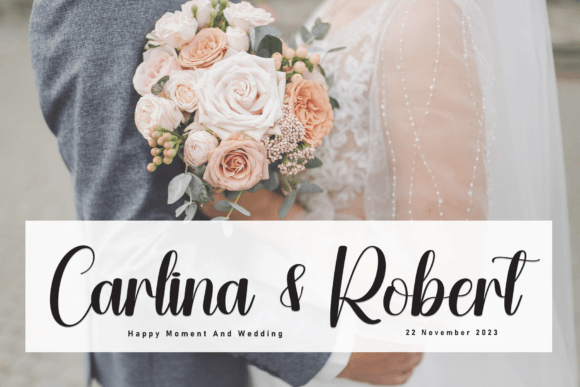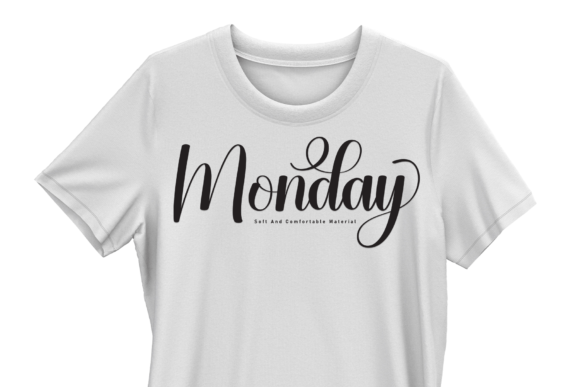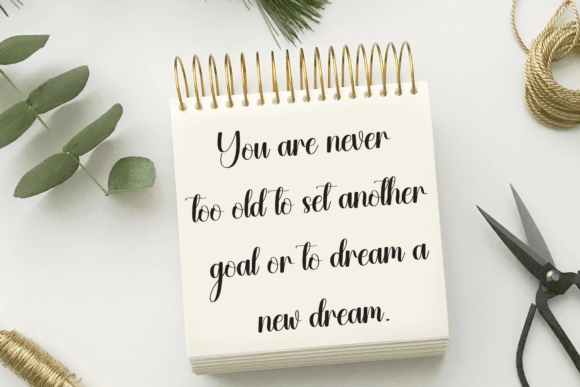
Introduction to Shady Umbrella Font
As a designer, there’s nothing quite like the thrill of landing on the perfect font for your creative project. It’s that moment when everything clicks, and your vision starts to take shape. I recall a project where I was tasked with creating a set of elegant invitations for a luxury wedding. The client wanted something sophisticated, yet understated, and that’s when I stumbled upon the Shady Umbrella Font.
With its unique blend of elegance and mystery, the Shady Umbrella Font quickly became my go-to choice. Its high-quality strokes and curves exude a timeless charm that’s simply irresistible. Whether you’re working on a design project that requires a dash of class or a hint of intrigue, this font is sure to deliver. And with its transparent background and PUA encoding, you can easily access all the amazing glyphs and ligatures to elevate your design to the next level.
Key Features of Shady Umbrella Font
• High-quality, unique font design ideal for creative projects, including graphic design, digital art, and more.
• Features a transparent background, allowing for easy integration into various design elements.
• Unique characteristics include a bold, modern aesthetic and a wide range of customizable options.
Honest Review: Shady Umbrella Font
As a designer, I was excited to try out the Shady Umbrella Font, a free download that promised high-quality typography. I must say, I was pleasantly surprised by the result.
What works well: ✨ The font is incredibly versatile and can be used for a variety of creative projects, from branding and marketing materials to digital products and websites. The transparent background feature is also a nice touch, allowing for seamless integration with any design.
Some of my favorite features include:
• High-quality glyphs that are perfect for printing and digital use
• A wide range of language support, making it a great resource for international projects
• A sleek and modern design that’s perfect for modern branding and marketing materials
Limitations: ⚠️ While the font is generally high-quality, I did experience some minor issues with kerning in certain font combinations. However, this was relatively minor and didn’t detract from my overall experience.
Overall, I’m really impressed with the Shady Umbrella Font and would definitely recommend it to fellow designers. It’s a great free resource that’s perfect for a variety of creative projects.
How to Use Shady Umbrella Font
The Shady Umbrella Font is a high-quality design resource ideal for creative projects that require a unique and eye-catching aesthetic. With its transparent background, this font can be easily integrated into various design platforms.
Getting the Most Out of the Shady Umbrella Font
To get the most out of the Shady Umbrella Font, experiment with different font sizes, colors, and combinations. Use the font to create visually appealing headlines, titles, and other design elements.
The Shady Umbrella Font is ideal for use in creative projects such as:
• Graphic design
• Logo design
• Print design
• Digital design
Alternatives to Shady Umbrella Font
Alex Brush is a high-quality, handwritten font perfect for creative projects that require a touch of elegance. Its cursive script style is ideal for invitations, wedding cards, and other design elements where a personal touch is needed.
Compared to Shady Umbrella Font, Alex Brush has a more refined and sophisticated look, making it suitable for formal events and high-end designs.